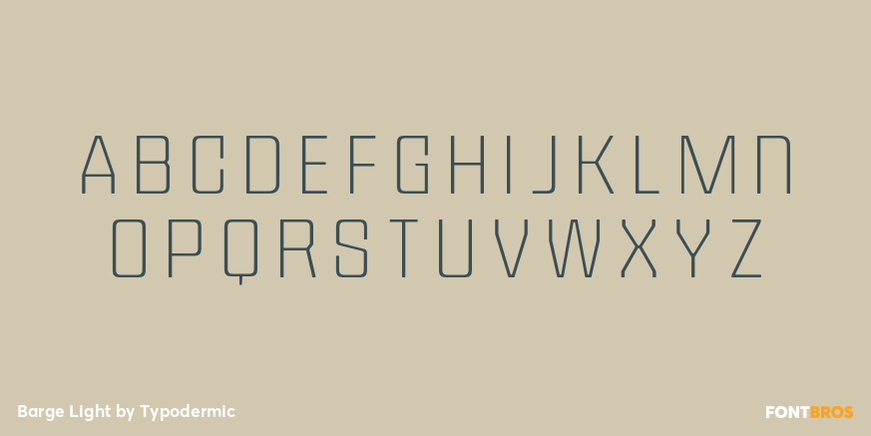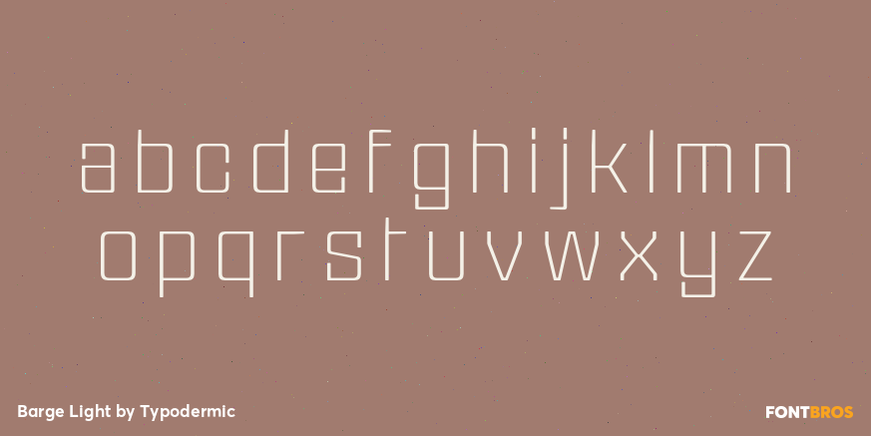
Barge Light
Buy NowA machine can be designed down to its last bevel, housing and fastener, then labeled with typography that seems to have arrived from somewhere else. Barge was created to close that gap. Its compact proportions, chamfered construction and sturdy rhythm allow the lettering to share the visual language of the object beneath it. The result feels less like a name placed on a machine and more like part of the machine’s design.
Barge draws on general industrial-design cues rather than one historical lettering source. Its forms recall shaped panels, reinforced corners, cast housings and components built to occupy limited space. The narrow stance gives long manufacturer names and model designations room to fit, while the squared details keep them visually substantial. Where wide, streamlined lettering tends to suggest luxury or effortless speed, Barge feels concentrated, structural and built to take a knock.
That makes Barge especially useful for typography applied directly to engineered objects. Manufacturer identities, product-family names, model numbers, control-panel headings and operating sections can become part of a coordinated visual system. Laboratory instruments, CNC equipment, factory robotics, power tools, synthesizers, amplifiers and specialist electronics offer the kinds of surfaces Barge was designed to inhabit: faceplates, equipment housings, molded cases, decals, badges and instruction panels. The same construction carries naturally into equipment cartons, specification sheets, trade-show displays and manual covers.
Barge’s engineered appearance also suits products developed around performance, formulation and measurable results. Pharmaceutical cartons, clinical product identities and laboratory-supply packaging can use its compact structure for prominent product names and clearly divided information. On protein supplements and sports-nutrition containers, it leaves room for formula names, product variants and quantities without sacrificing the impact of the main label. Sporting goods present similar opportunities: protective equipment, strength-training products, racket cases, tool-like accessories and performance components all benefit from lettering that looks designed into the product rather than added at the end.
Motorsports takes that relationship between typography and machinery even further. Barge can handle team identifiers, racing numbers, vehicle classes, model names, workshop graphics and component labels while holding its ground against complex surfaces and technical graphics. Rally machinery, endurance-racing equipment, engine parts, tool cases and paddock displays give its compressed forms a practical reason to be there.
The same language extends briefly but convincingly into science fiction. Barge suggests technology with mass and structure: spacecraft hulls, observatory equipment, antenna arrays, pressure doors and control consoles assembled from actual parts. It can identify an imagined machine as readily as a real one, or bring that physical sense of technology to a science-fiction cover, tabletop-game system or exhibition graphic.